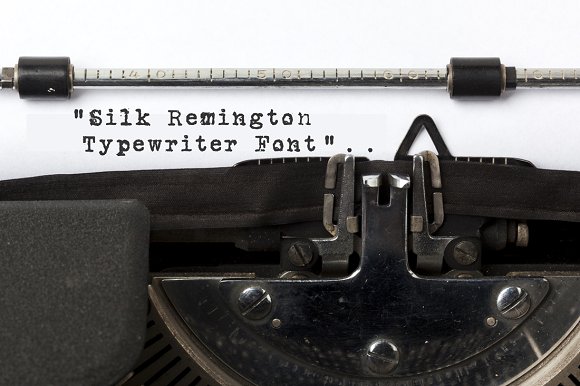
Introducing Silk Remington Font, the authentic typewriter font designed by the talented Jadugar Design Studio from New Zealand. Immerse yourself in the nostalgic charm of this unique font that transports you to the bygone era of vintage and retro vibes.
With Silk Remington, you can effortlessly recreate the experience of reading old newspapers, evoking a sense of nostalgia and timeless elegance. Its meticulously crafted characters exude an air of authenticity, making every word feel like it was typed on a classic typewriter.
Immerse yourself in the world of Silk Remington and let its distinctive serifs and timeless appeal captivate your audience. This font is not just a tool for communication, but a piece of art that adds charm and character to any project.
Whether you're designing a vintage-inspired logo, creating eye-catching headlines, or giving your website a retro makeover, Silk Remington is the perfect companion. Its versatility knows no bounds, effortlessly adapting to various design styles and capturing attention with its unique flair.
The Silk Remington font is more than just a typeface; it's a journey back in time, a reminder of an era when things were simpler yet filled with character. Let your creativity flow as you infuse your designs with a touch of nostalgia and authenticity.
Experience the magic of Silk Remington and unlock a world of endless possibilities. Transport yourself and your audience to a time when elegance and sophistication were paramount. Let this font be the key that unlocks a world of creativity and imagination.